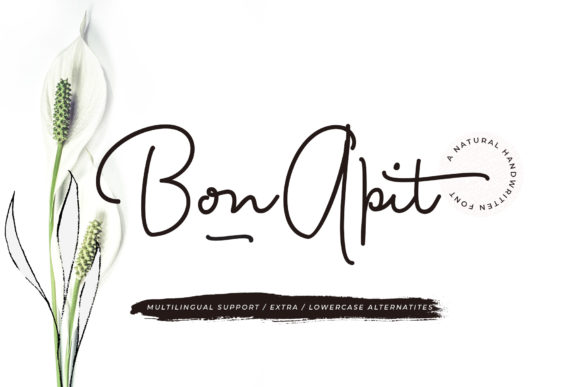
The Sweet Charm of Bon Apit Font: A Designer’s Delight
I’ll never forget the time I was working on a wedding invitation project, and my client asked for a font that was “whimsical, yet elegant.” I scoured the internet, trying out font after font, but nothing seemed quite right. That was until I stumbled upon Bon Apit Font. This sweet, soft hand-lettered script font stole my heart, and I’ve been obsessed ever since.
The Good: Why I’m Obsessed with Bon Apit
- ✨ Sweet and Soft Aesthetic: The playful rounded characters make it perfect for creating stunning art that’s both eye-catching and charming.
- ✅ Authentic Feel: Bon Apit has a genuine, hand-crafted feel that’s hard to find in digital fonts.
- 🎨 Versatility: Use it for wedding invitations, beautiful stationary art, social media posts, and cute greeting cards.
The Not-So-Good: A Few Quirks to Keep in Mind
While Bon Apit is an amazing font, there are a few things to watch out for:
- ⚠️ Limited Use in Small Sizes: Bon Apit’s delicate features can get lost in very small font sizes, so it’s best used in larger sizes (24px and up).
- 🤔 Occasional Kerning Issues: As with any script font, you may need to adjust kerning manually to ensure perfect spacing between letters.
The Story Behind Bon Apit: A Designer Inspiration
Bon Apit was designed with love and care by a talented font designer who wanted to create a font that captured the essence of hand-lettering. With its sweet, soft aesthetic and authentic feel, it’s no wonder Bon Apit has become a favorite among designers and crafters.
Q: What is the best use for Bon Apit Font?
A: Bon Apit is perfect for creating stunning art, wedding invitations, beautiful stationary art, eye-catching social media posts, and cute greeting cards.
Q: Is Bon Apit suitable for body text?
A: While Bon Apit is a beautiful font, it’s best used in larger sizes (24px and up) due to its delicate features. For body text, consider using a clearer, sans-serif font.